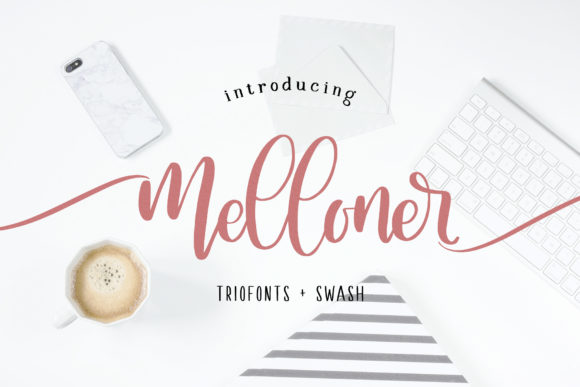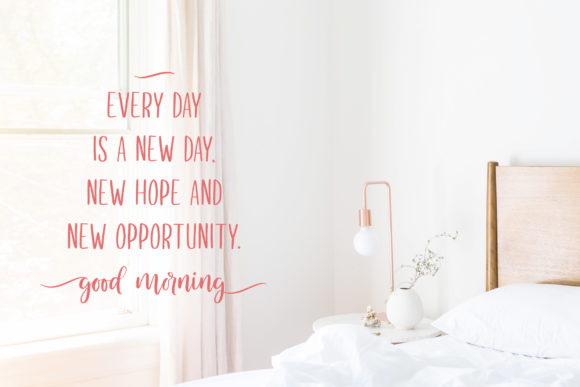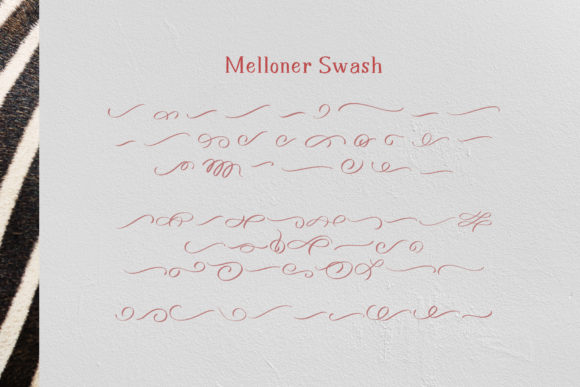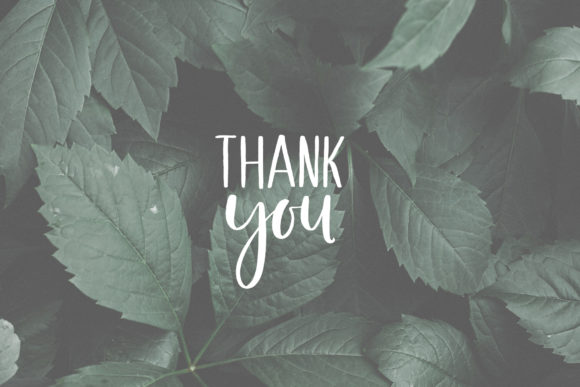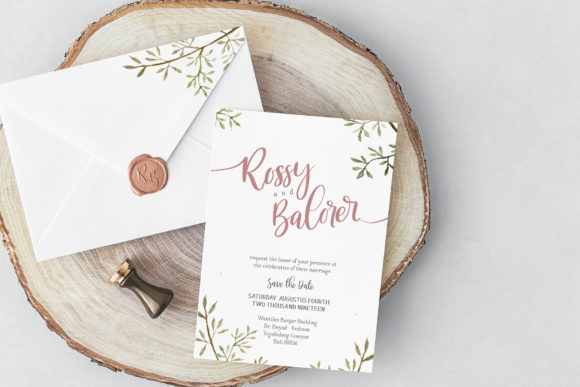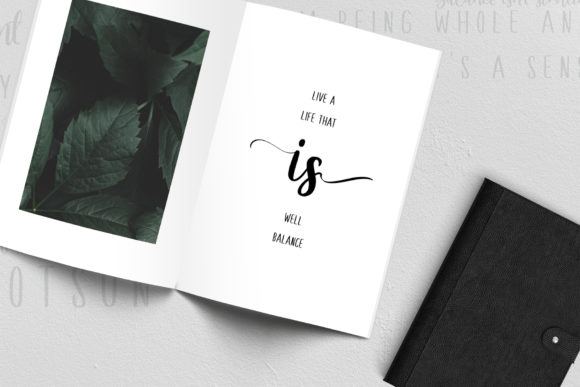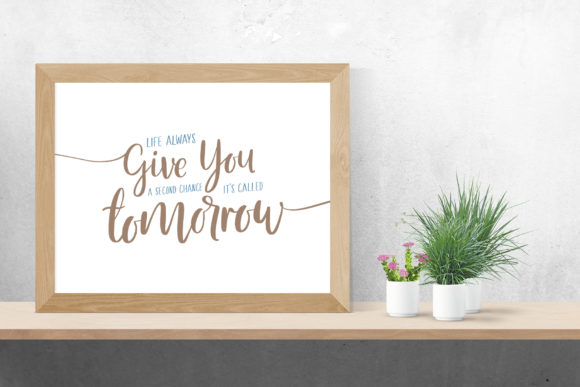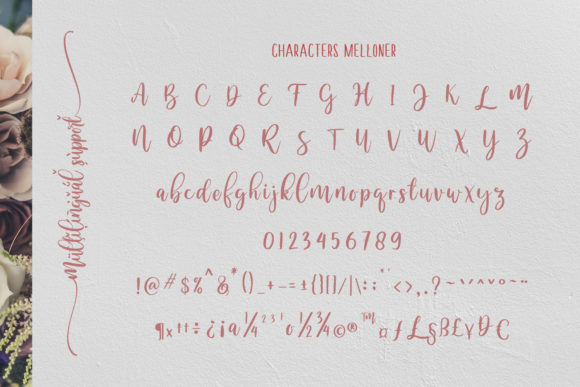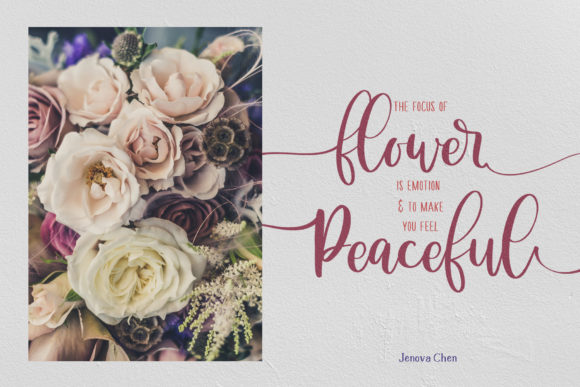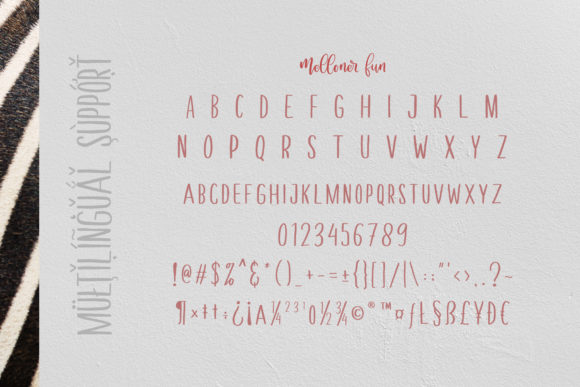
Melloner Font
About Melloner Font
Melloner is a casual and light handwritten font with a cool twist. Get inspired by its unique charm, and turn any design project into a standout!